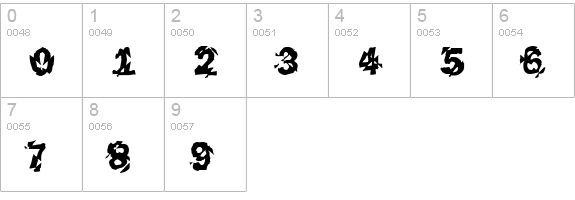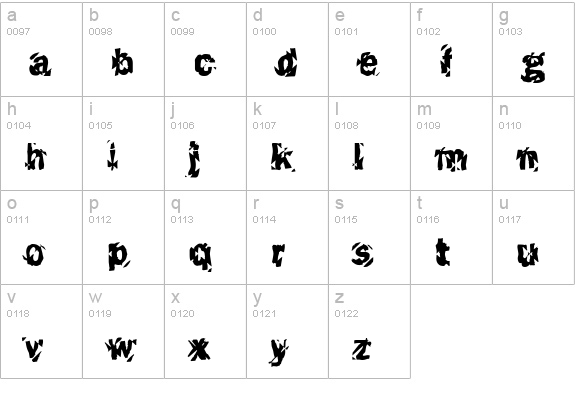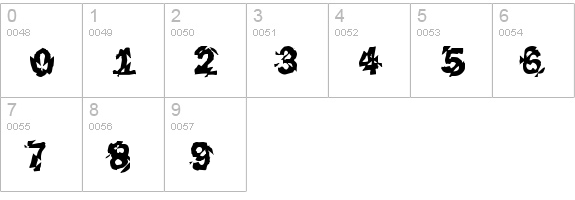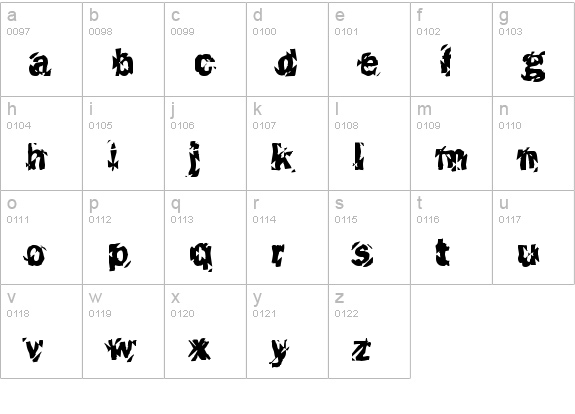
Funky45-Bold Font Details
Funky45-Bold is a strong, high-contrast variant in the Funky45 typeface family \xE2\x80\x94 well suited to headlines, attention-grabbing titles, and strong calls-to-action.
Funky45-Bold is a vibrant and eye-catching font that exudes a playful and energetic vibe. Its bold and funky design makes it perfect for grabbing attention and adding a touch of fun to any project. The unique combination of thick lines and quirky shapes gives this font a modern and dynamic look that is sure to make a statement. Whether you're creating posters, logos, or social media graphics, Funky45-Bold will bring a touch of personality to your designs. Best of all, Funky45-Bold is available for free download at FontsMarket.com. Get your hands on this exciting font today and unleash your creativity with its bold and funky style!